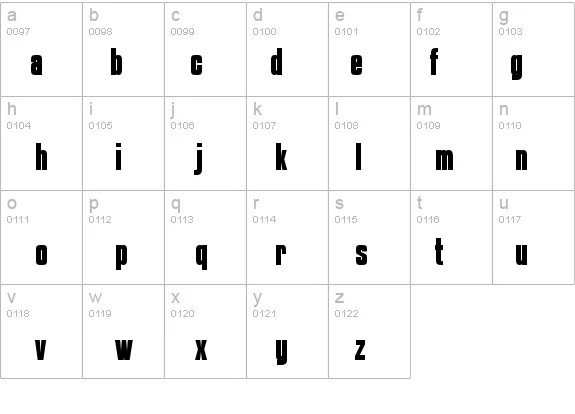
Kenyan Coffee Google Font. You can install the font in several ways, for example: In 2011, kenyan coffee was rebuilt and expanded into a larger font family.
If eula is missing, visit www.larabiefonts.com for an updated version of this font. Download kenyan coffee regular font. Kenyan coffee font is a basic sans serif font that has a clean and decent texture.
It’s Available In 7 Weights And Italics.
Kenyan coffee is a trademark of ray larabie. Votes, rated based on results identification. Kenyan coffee stencil, a headliner based on the late 1990's typeface by the same name.
Kenyan Coffee Is A Narrow Headline Typeface Created In 1999.
So, that’s why it has a slim blocky texture. Kenyan coffee font is a basic sans serif font that has a clean and decent texture. It will elevate a wide range of design projects to the highest level, be it branding, headings, wedding designs, invitations, signatures, logos, labels, and much more!
If you want to report a violation, you can write to us about it on the contact page. This font includes a license that allows free commercial use: Kenyan coffee is a slim, blocky display typeface inspired by compact headliners of the 1960’s.
He Has Taken Inspiration From Compact Headliners Of The 1960S.
In 2011, kenyan coffee was rebuilt and expanded into a larger font family. It's available in 7 weights and italics. Because he releases it for the first time via typodermic fonts.